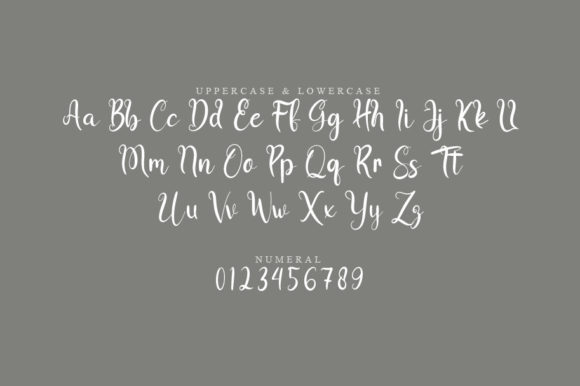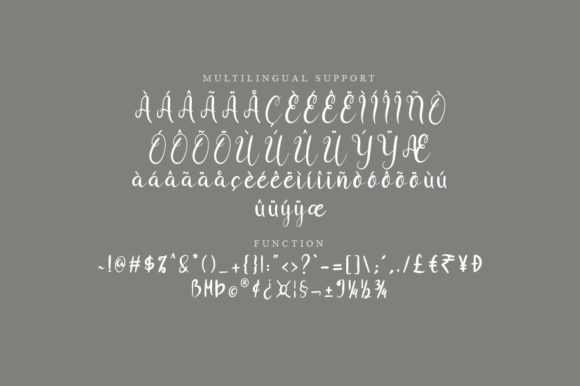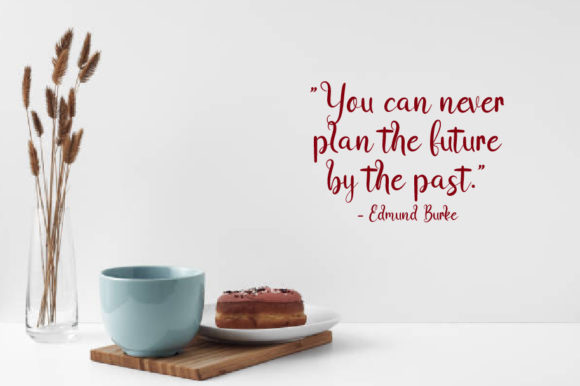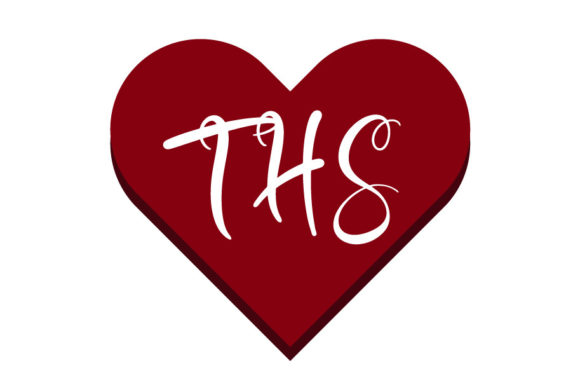
Introducing Blife Font: The Timeless Handwritten Font for Stunning Designs
Are you a designer or crafter looking for a font that can add a touch of elegance and sophistication to your designs? Look no further than Blife Font! This lovely and timeless handwritten font is perfect for creating eye-catching logos, branding, and quotes that will leave a lasting impression on your audience.
The Unique Charm of Blife Font
What sets Blife Font apart from other fonts is its unique and beautiful touch. Every letter has been carefully crafted to have its own distinct character, making it a true standout in the world of typography. Whether you’re looking to create a bold and statement-making design or a soft and subtle one, Blife Font is the perfect choice.
Blife Font is incredibly versatile and can be used for a wide range of design projects. Its elegant and cursive script makes it perfect for creating stunning logos, branding, and quotes that will capture the attention of your audience. Whether you’re designing a logo for a new business or creating a social media post, Blife Font is sure to make your design come alive!
Why Designers and Crafters Love Blife Font
So, why do designers and crafters love Blife Font? For starters, its unique and beautiful touch adds a level of sophistication and elegance to any design. Additionally, its versatility makes it perfect for a wide range of projects, from logos and branding to quotes and social media posts. Plus, its easy-to-read script makes it perfect for designs that need to be both visually appealing and easy to understand.
Tips for Using Blife Font in Your Designs
Here are a few tips for using Blife Font in your designs:
- Use it for headings and titles to add a touch of elegance and sophistication.
- Pair it with a bold font for a striking contrast.
- Experiment with different colors and textures to add depth and interest.
- Use it to create eye-catching quotes and social media posts.
The Benefits of Using Blife Font
There are many benefits to using Blife Font in your designs. For starters, it’s a great way to add a touch of elegance and sophistication to your designs. Additionally, its unique and beautiful touch will help your designs stand out from the crowd. Plus, its versatility makes it perfect for a wide range of projects, from logos and branding to quotes and social media posts.
In conclusion, Blife Font is a timeless and lovely handwritten font that’s perfect for designers and crafters looking to add a touch of elegance and sophistication to their designs. Its unique and beautiful touch, versatility, and easy-to-read script make it perfect for a wide range of projects. Whether you’re creating a logo, branding, or quotes, Blife Font is sure to make your design come alive!